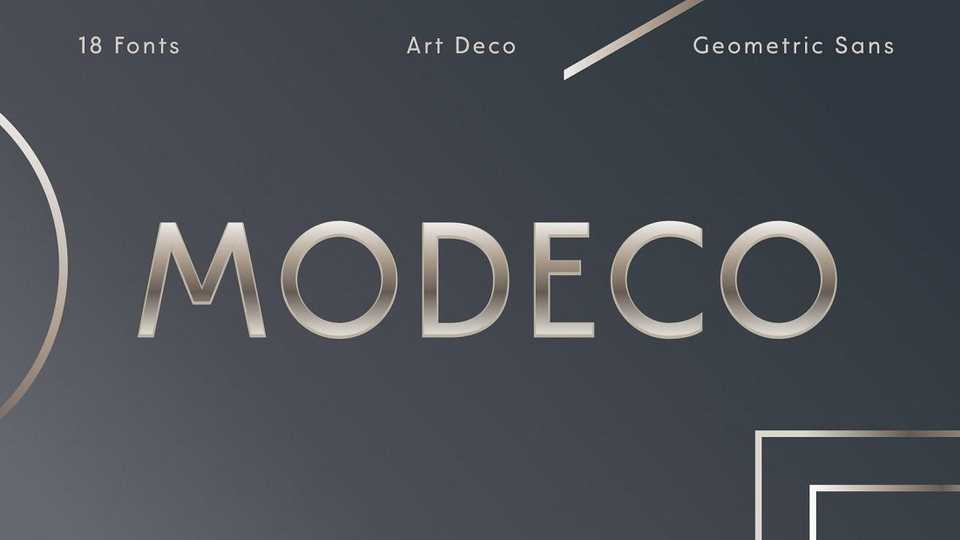
Download Modeco typeface, a sans serif font family, combining modern and art deco styles. Modeco shown elegant, classy and glamour look as 1920’s visual trends, blended with geometrical sans serif in a functionality approach and complete font family styles.